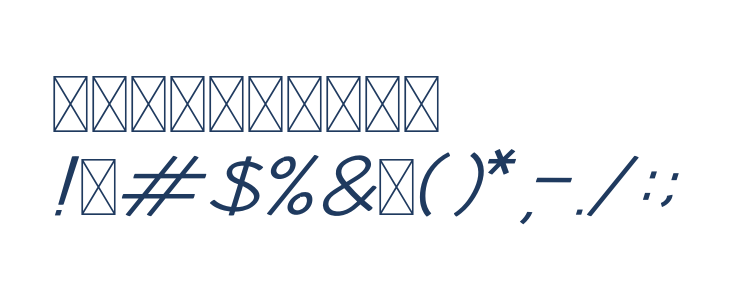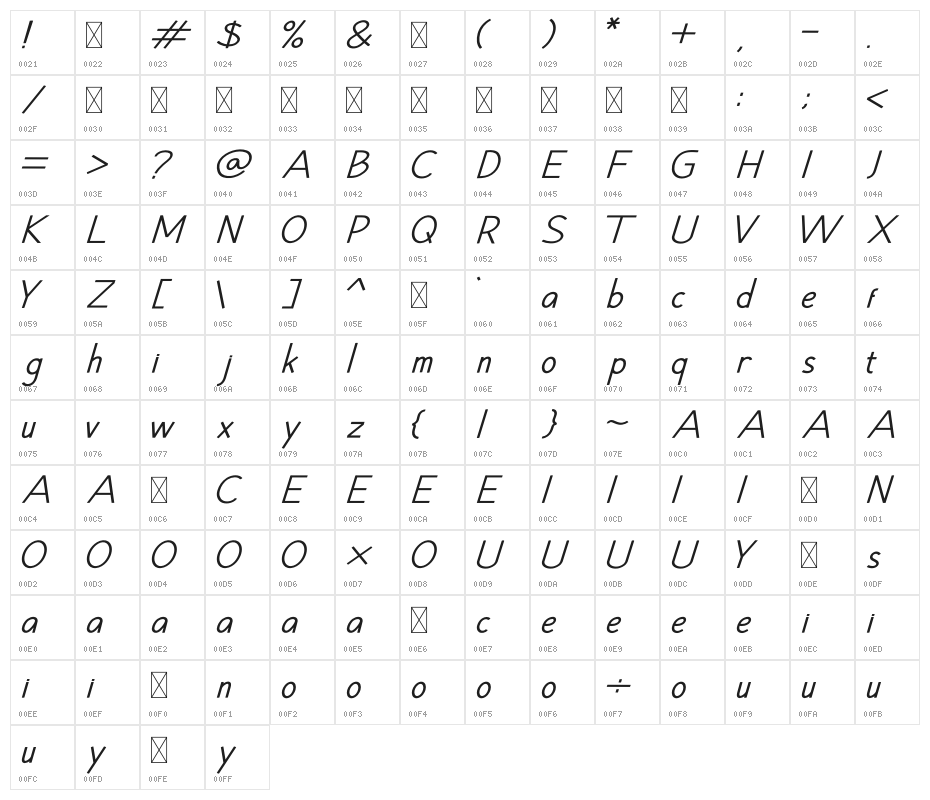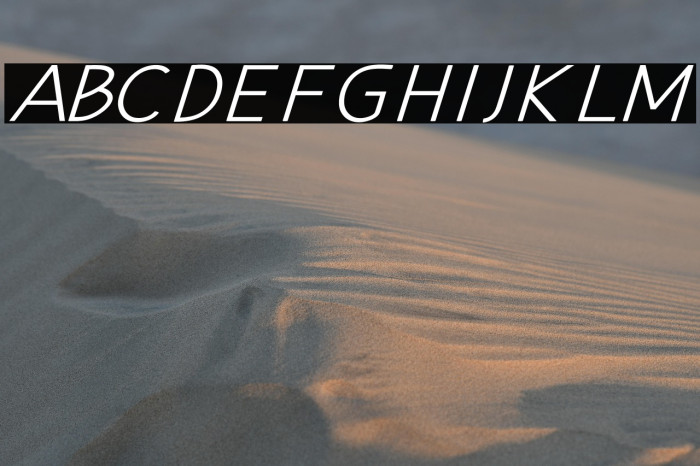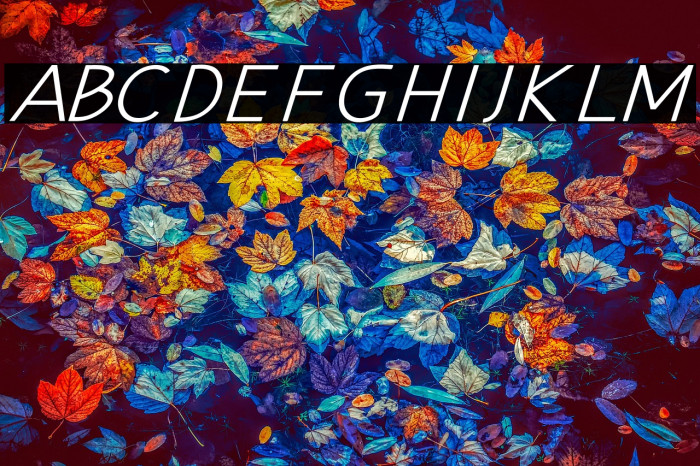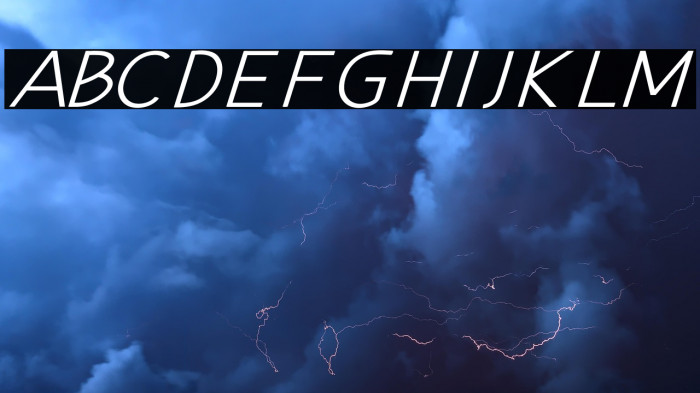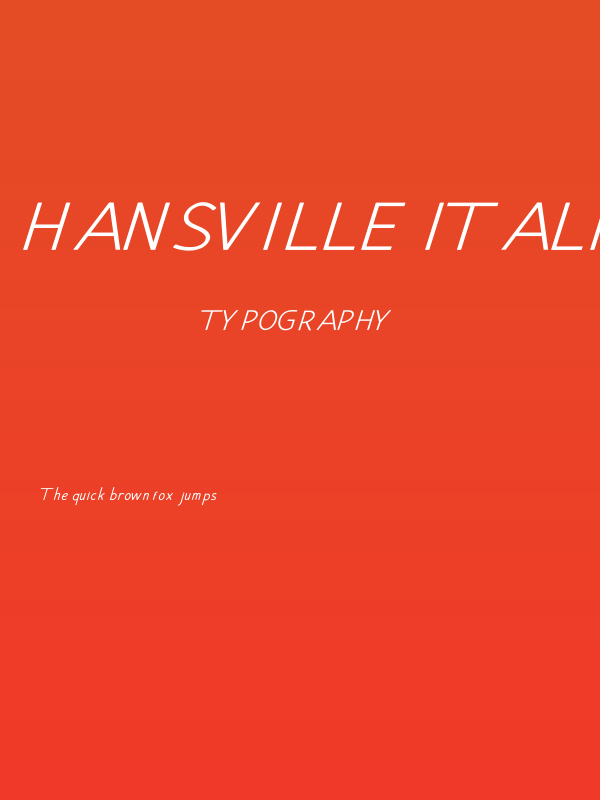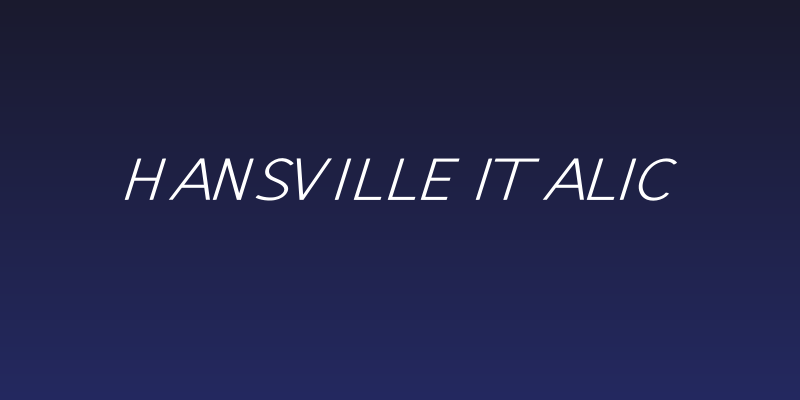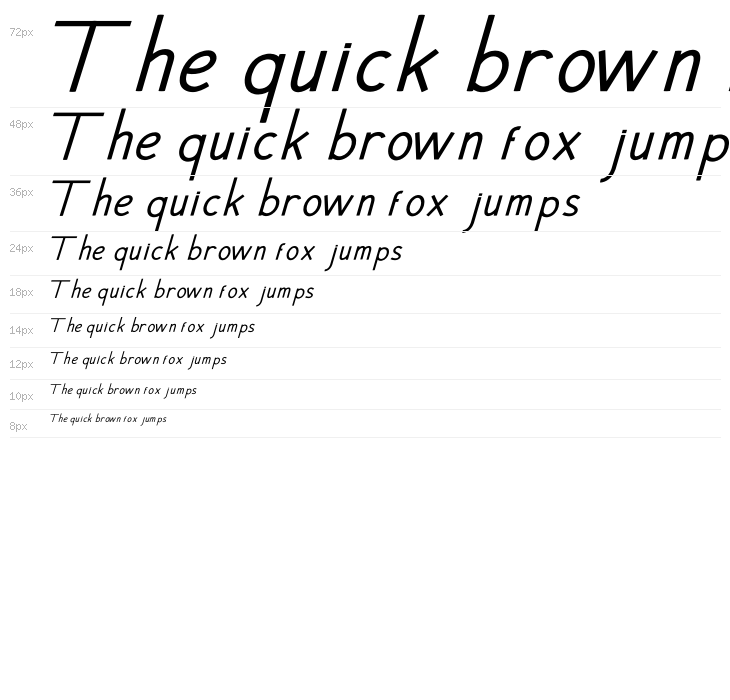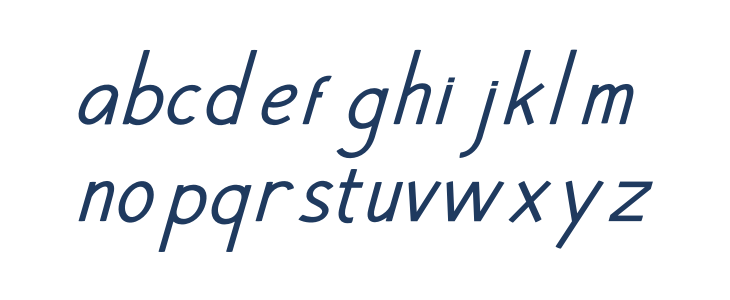
Hansville Italic Font
Hansville Italic Description
This font features a sleek, italicized design with clean lines and a modern aesthetic. The uppercase letters are slightly elongated, giving them an elegant appearance, while the lowercase letters maintain a consistent flow with subtle curves. The numerals are straightforward and align well with the overall style. Special characters are included, providing versatility for various uses. The font's slant adds a dynamic feel, making it suitable for projects that require a touch of sophistication and movement.
Use CaseHeadlines, Logos, Editorial design
Proposed ProjectsIdeal for branding, editorial design, fashion magazines, and dynamic advertising materials.